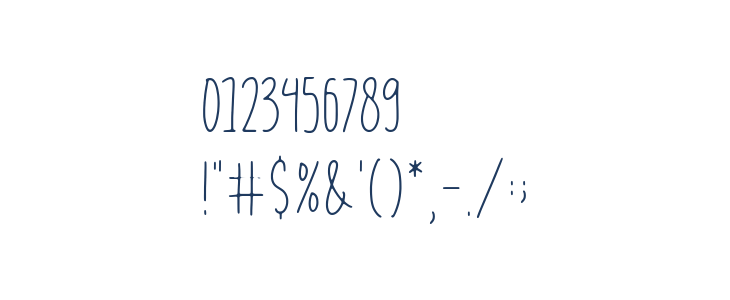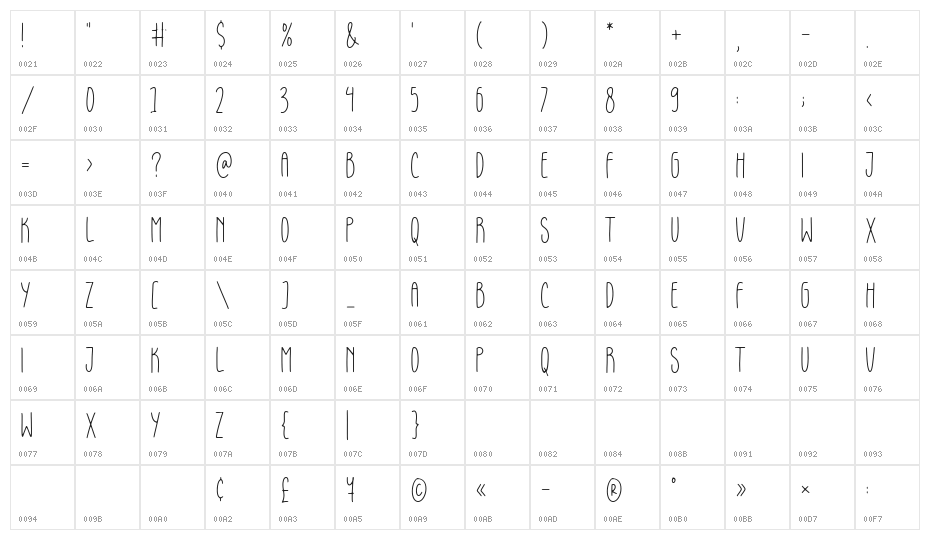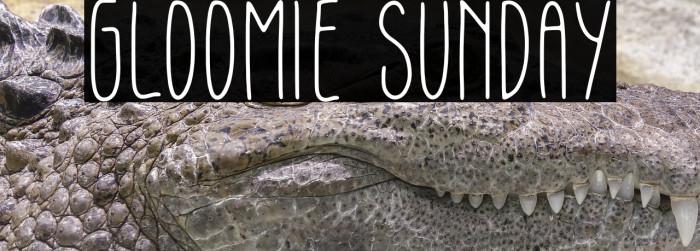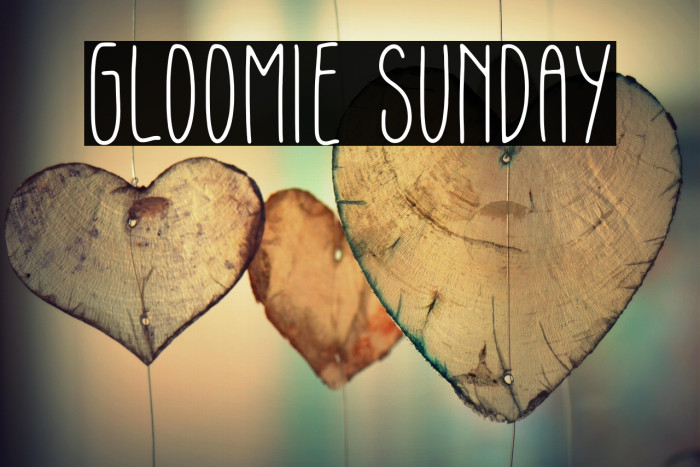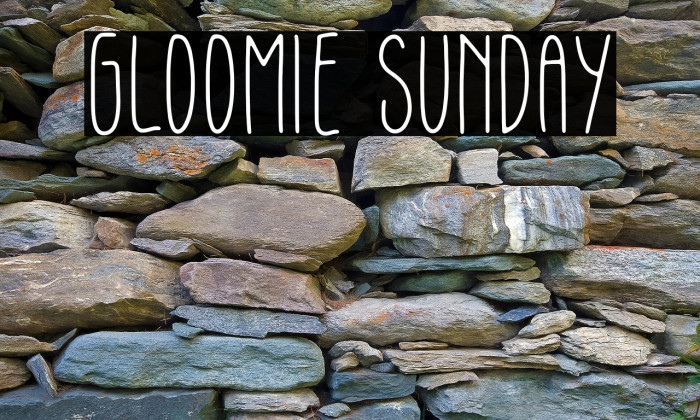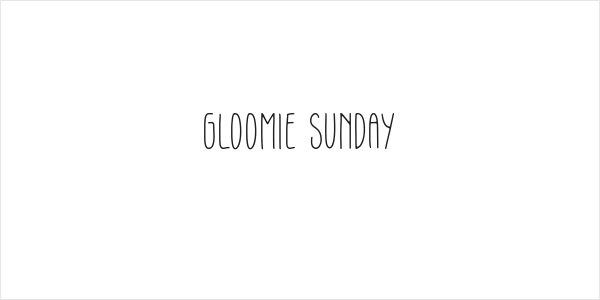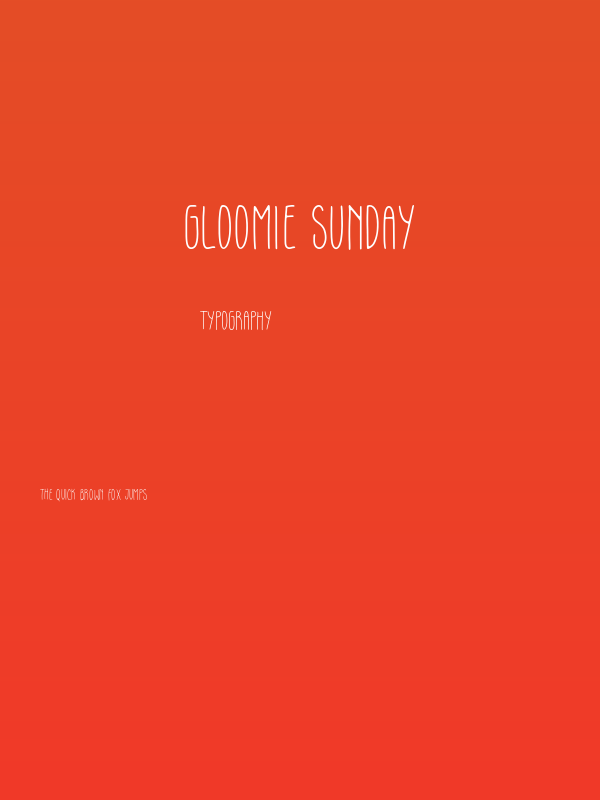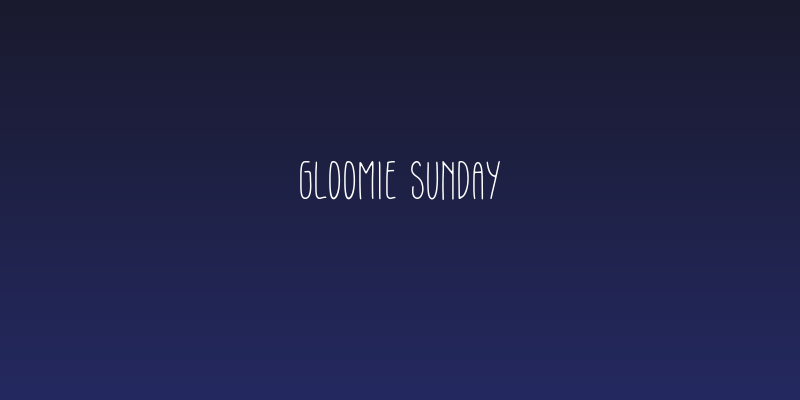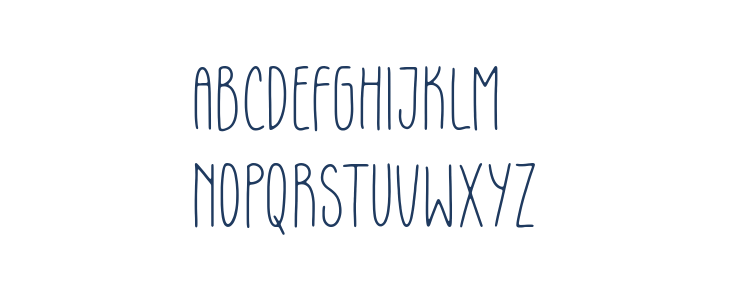
Gloomie Sunday Font
Gloomie Sunday Description
This font features a playful and whimsical style with tall, narrow letters that have a hand-drawn appearance. The characters are slightly irregular, adding to the casual and informal feel. The strokes are consistent in width, giving it a monolinear look. The font includes both uppercase and lowercase letters, numbers, and a variety of special characters. Its unique style makes it suitable for creative projects that require a personal touch.
| Overall Style | Casual, Whimsical |
| Use Case | Headlines, Creative projects, Informal text |
| Proposed Projects | Ideal for greeting cards, children's books, playful branding, and creative posters. |